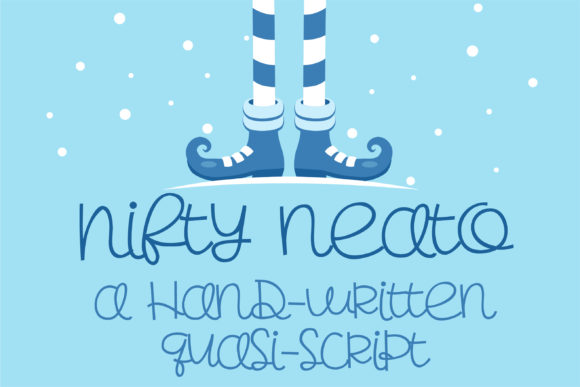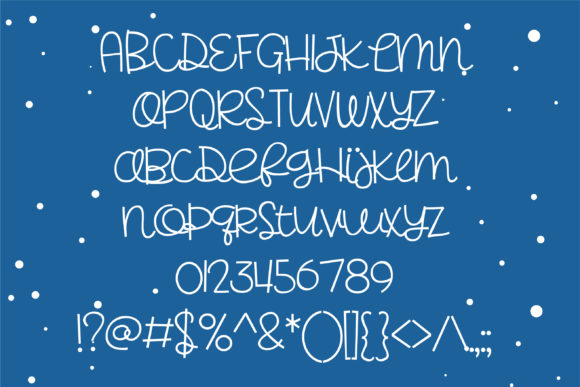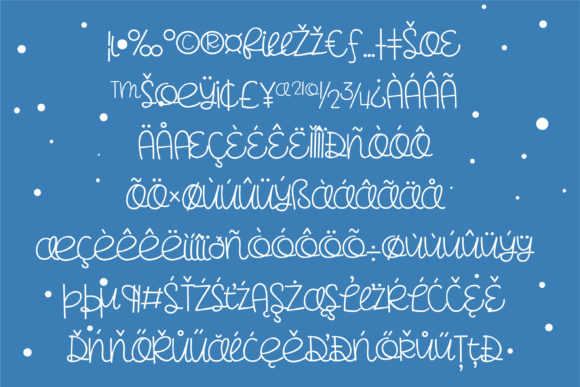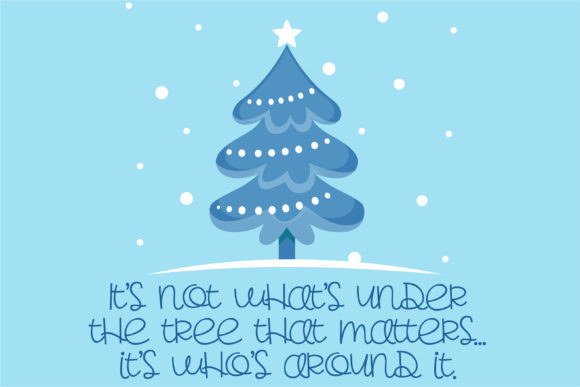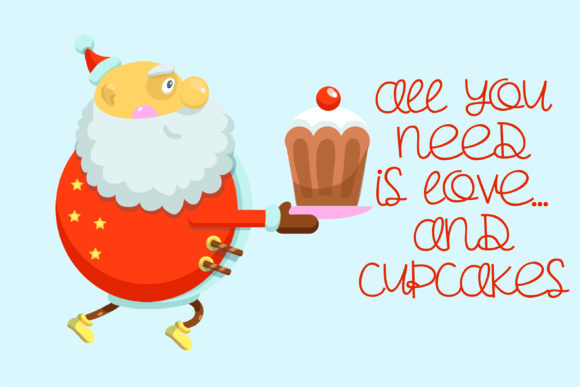
HomeScript FontsNifty Neato Font Script Fonts Nifty Neato Font FacebookXPinterestWhatsApp Nifty Neato Font Poster 2 Nifty Neato Font Poster 3 Nifty Neato Font Poster 4 Nifty Neato Font Poster 5 About Nifty Neato Font This fun and whimsical quasi-script is a hand-written part script, part print. DOWNLOAD NOW People also explored Gingerbel Font Asyifa Font Charlotta Font Jargon Font Planner Dingbats Font Bottomvega Font Edisp Script Font Nisha Monogram Font Cold Brew 332 0 TagsNifty Neato Font Previous articleTearjerking FontNext articleThingamajig Font LEAVE A REPLY Cancel reply Comment: Please enter your comment! Name:* Please enter your name here Email:* You have entered an incorrect email address! Please enter your email address here Website: Save my name, email, and website in this browser for the next time I comment. Personal Use Free Harmony Personal Use Free Read more about this font Gupis Personal Use Free Read more about this font Boronic Personal Use Free Read more about this font Comic Caps Personal Use Free Read more about this font BLOG Fonts That Capture the Spirit of New York City New York City is more than just a place—it’s an experience, a rhythm, a visual language... Free Fonts Risk: Why Free Fonts Can Be Dangerous for Designers Transform Your Website: Elevate Your Typography with 7 Best Web Font Generators How to Cut Any Font on Cricut: Convert a Font to SVG (Free)